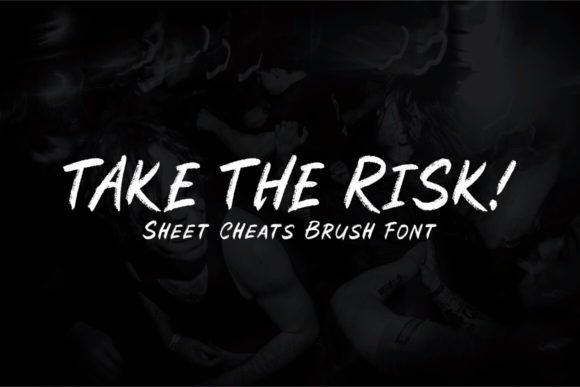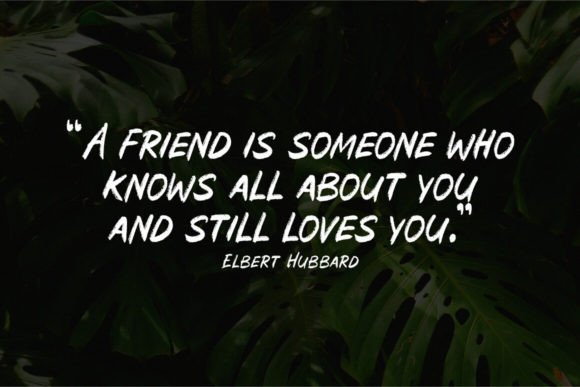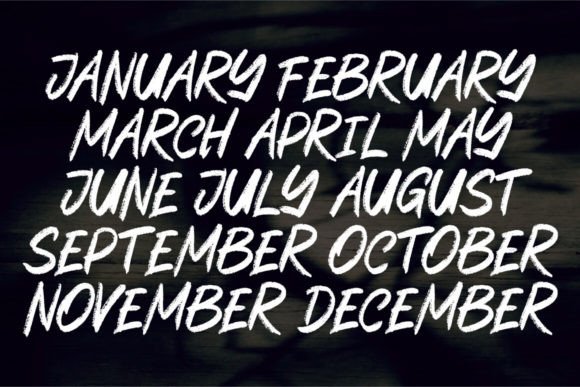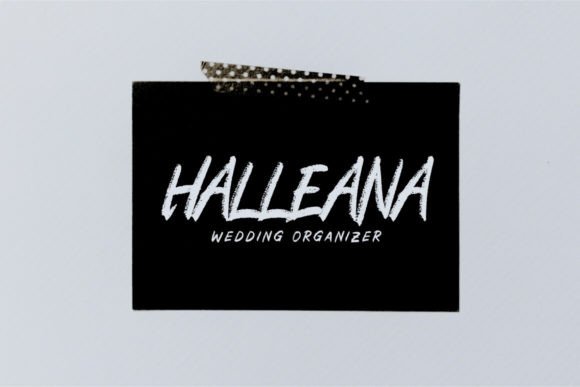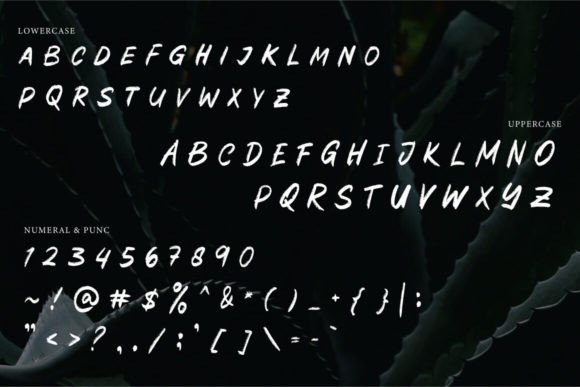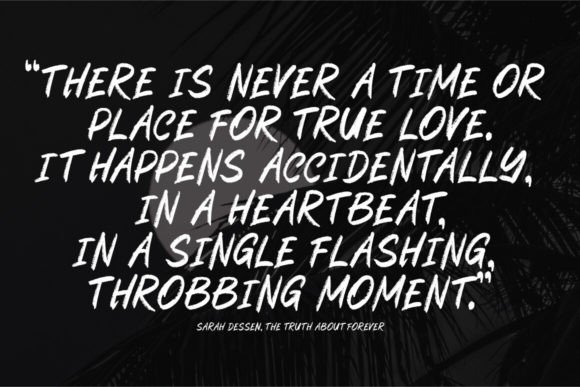
Introduction to Sheets Cheats Font
Have you ever been stuck in the middle of a creative project, desperately searching for the perfect font to elevate your design? You know, that one elusive font that sets your entire visual identity apart and leaves a lasting impression on your audience. For designers like us, finding the right font can be a game-changer, and that’s exactly what Sheets Cheats Font promises to deliver.
With its unique blend of style and sophistication, Sheets Cheats Font is a design resource that’s sure to bring a fresh twist to your creative projects. Whether you’re working on a branding project, a social media campaign, or a simple graphic design, this font is sure to make your design pop. And the best part? It’s available for free download, making it an accessible and valuable addition to any designer’s toolkit.
What sets Sheets Cheats Font apart is its ability to seamlessly blend with any design, thanks to its transparent background and high-quality design. Whether you’re a seasoned designer or just starting out, this font is sure to become a go-to design resource for your creative projects.
Sheets Cheats Font
- Unique, hand-drawn design ideal for creative projects
- Transparent background, allowing for seamless integration into any design
- Includes 100+ glyphs, including letters, numbers, and symbols
Honest Review: Sheets Cheats Font
I recently came across the Sheets Cheats Font, a design resource that caught my attention with its unique style and versatility. The font is available for free download, which is always a plus for designers on a budget.
What works well: ✨ The font’s transparent background makes it easy to integrate into any creative project, and its high quality ensures that it looks great on any device. I also appreciate the wide range of styles and weights available, which makes it perfect for projects that require a lot of customization.
Some potential limitations: ⚠️ The font’s uniqueness can also be a double-edged sword. While it’s perfect for creative projects that require a bold statement, it may not be the best choice for more traditional or conservative designs.
Here are some key features that I like about the Sheets Cheats Font:
- High quality for crisp, clear text
- Wide range of styles and weights for customization
Overall, I’m impressed with the Sheets Cheats Font. It’s a great addition to any designer’s toolkit, and its unique style makes it perfect for creative projects. Just be aware of its limitations and use it wisely!
Sheets Cheats Font
To get the most out of the Sheets Cheats Font, use it on a transparent background to create a seamless design. You can also combine it with other design elements to create a unique and high-quality look.
The Sheets Cheats Font is ideal for various design projects, including:
- Posters
When to use: For designs that require a unique, handwritten touch, such as wedding invitations, event promotions, or luxury branding.
Comparison to Sheets Cheats Font: Great Vibes Font offers a more elegant and sophisticated look compared to Sheets Cheats Font, which is more playful and casual.
Alex Brush Font is a high-quality, calligraphic font that exudes a sense of sophistication and refinement. It features a transparent background, making it perfect for designs with complex backgrounds. Alex Brush Font is available for free download, making it an excellent design resource for designers.
When to use: For designs that require a touch of elegance and sophistication, such as luxury branding, high-end event promotions, or creative project presentations.
Comparison to Sheets Cheats Font: Alex Brush Font offers a more refined and sophisticated look compared to Sheets Cheats Font, which is more playful and casual.